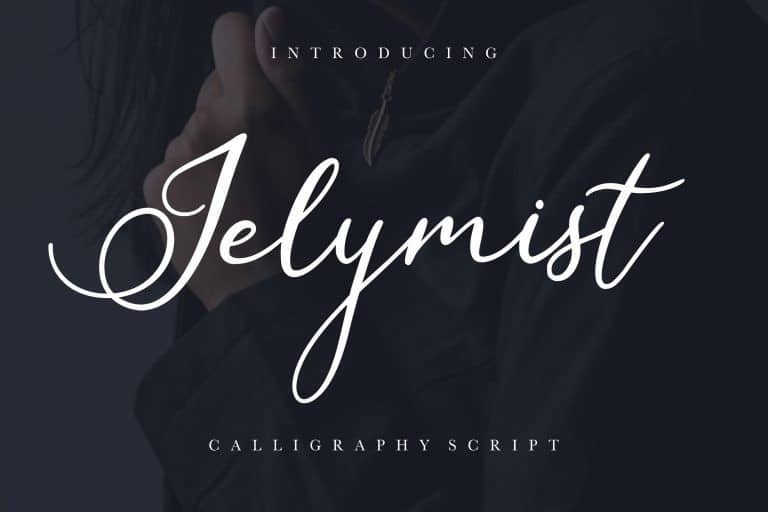
Jelymist Font
Jelymist Calligraphy Font is a modern chic Calligraphy font with magical pressure. Made from font designer named Creatype Studio. This typeface is perfect for branding projects, logo, wedding designs, social media posts, advertisements, product packaging, product designs, label, photography, watermark, invitation, stationery and any projects that need handwriting taste.